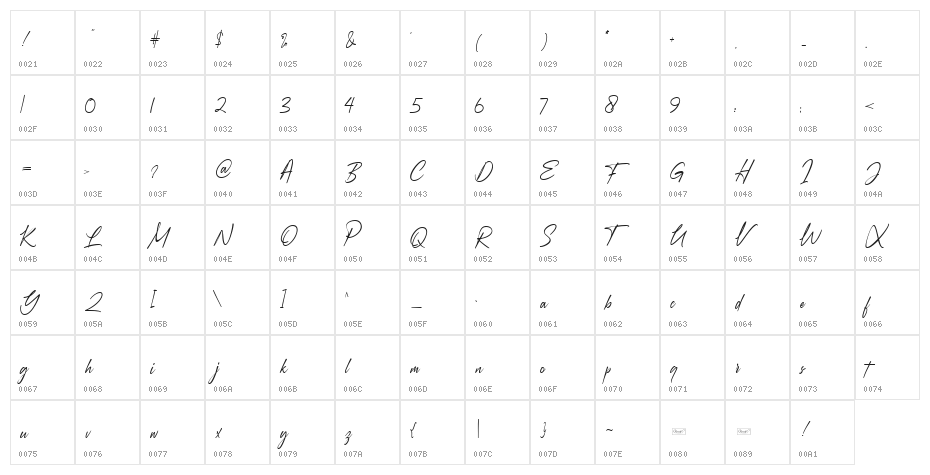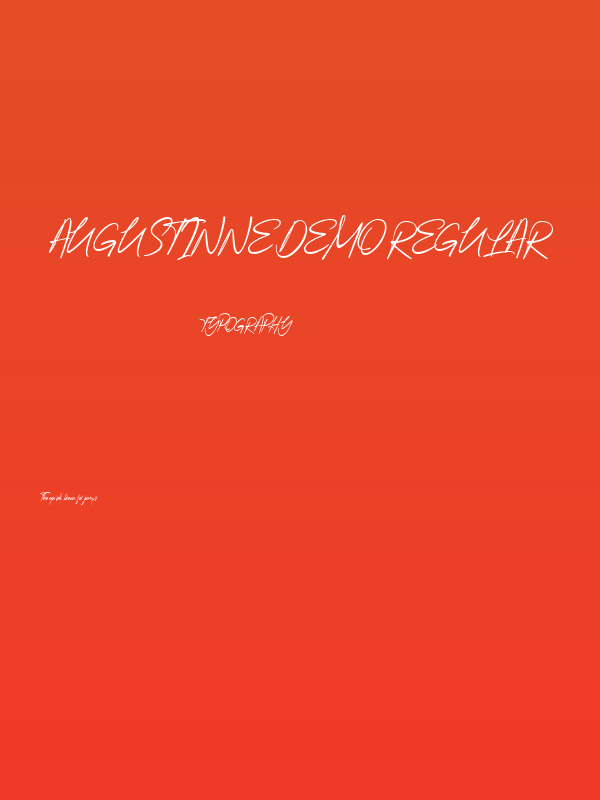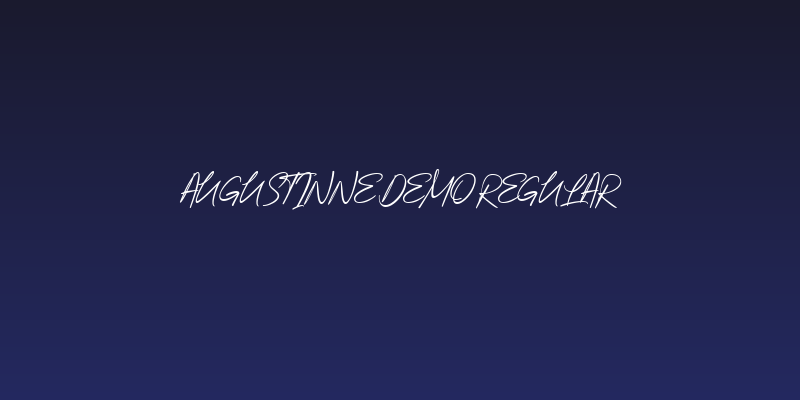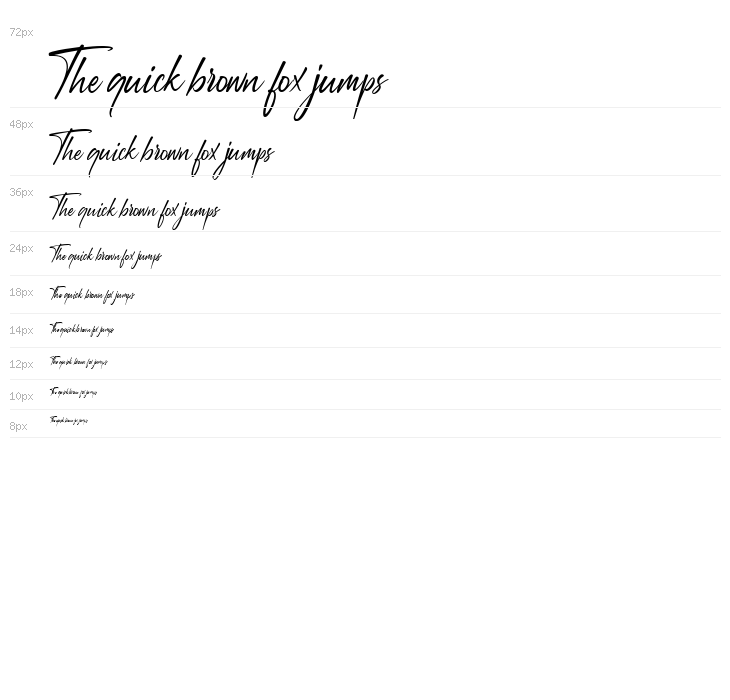
Augustinne demo Regular Font
Augustinne demo Regular Description
This font exudes a sense of elegance and fluidity, characterized by its cursive, handwritten style. The letters are connected in a smooth, flowing manner, giving it a personal and artistic touch. The uppercase letters are bold and prominent, while the lowercase letters maintain a consistent flow, enhancing readability. The numerals and special characters are designed to complement the overall aesthetic, maintaining the same fluidity and elegance. This font is ideal for projects that require a personal, artistic, or sophisticated touch.
| Overall Style | Elegant, Artistic |
| Proposed Projects | Ideal for wedding invitations, greeting cards, personal branding, and artistic projects. |